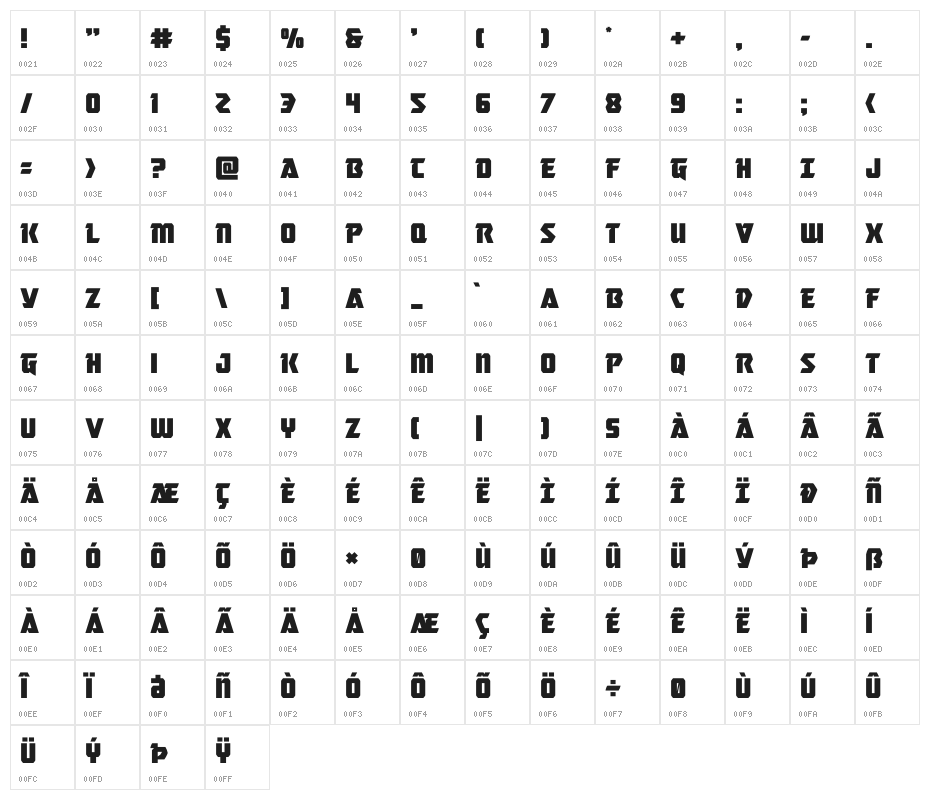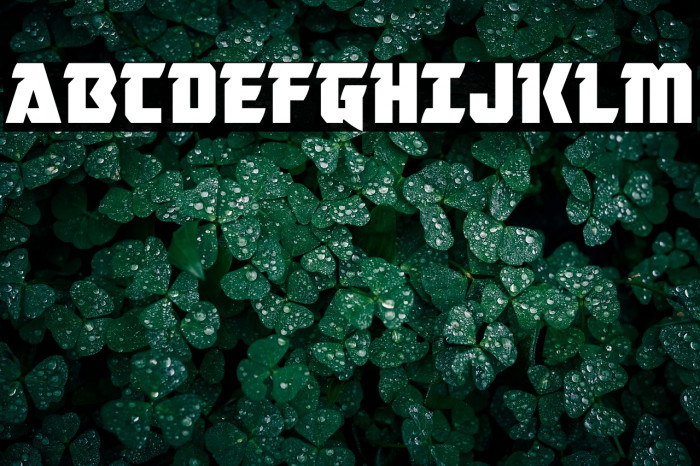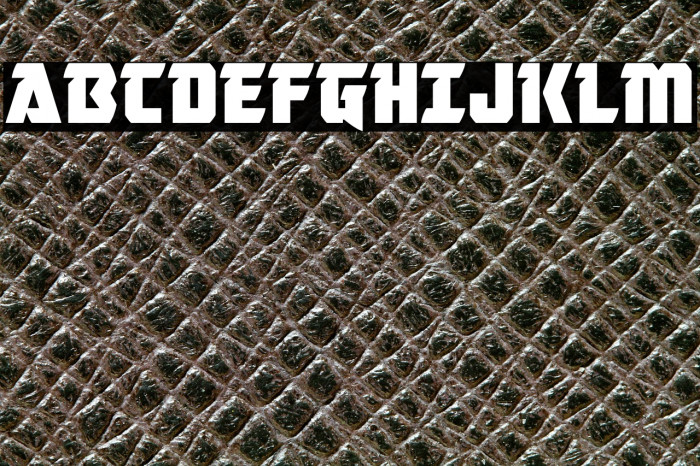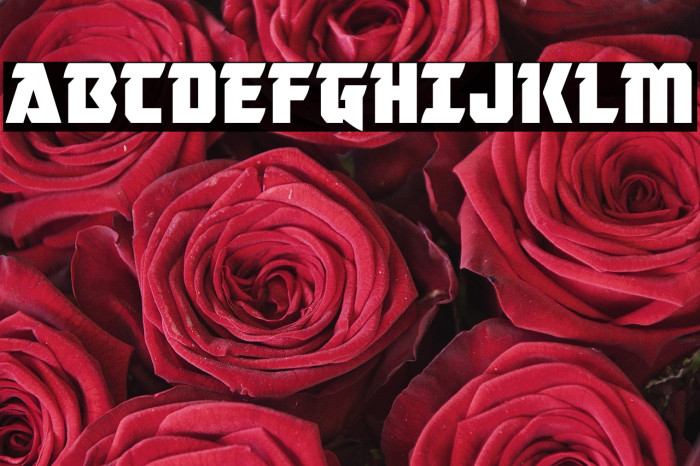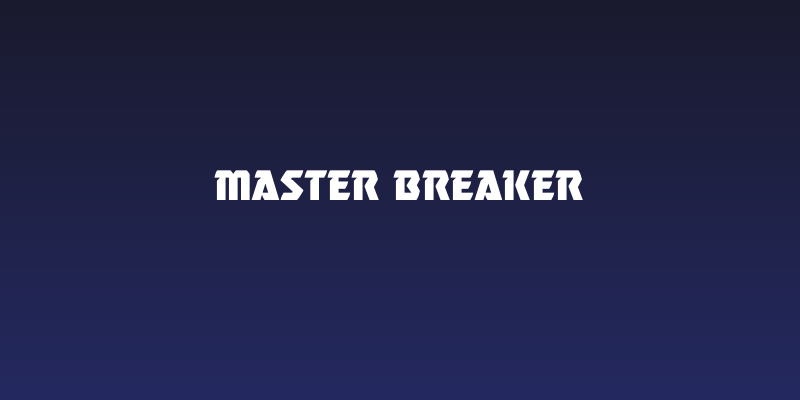
Master Breaker Font
Master Breaker Description
This font features a bold and striking design with angular, geometric shapes that create a sense of strength and modernity. The characters are crafted with sharp edges and a uniform thickness, giving them a robust and impactful appearance. The uppercase letters are particularly prominent, with a consistent height and width that enhances readability. The numerals and special characters maintain the same bold style, ensuring a cohesive look across all text elements. This font's unique style makes it ideal for projects that require a strong visual presence.
| Proposed Projects | Ideal for branding, posters, headlines, and any design requiring a strong, modern aesthetic. |